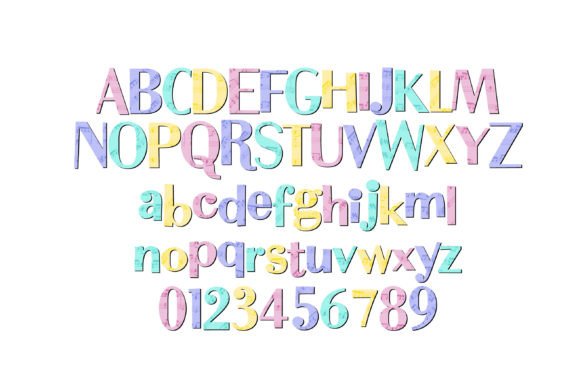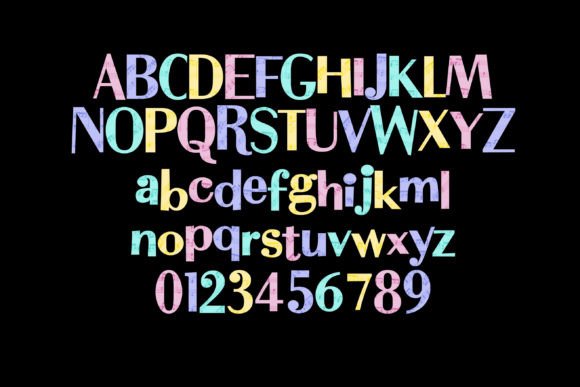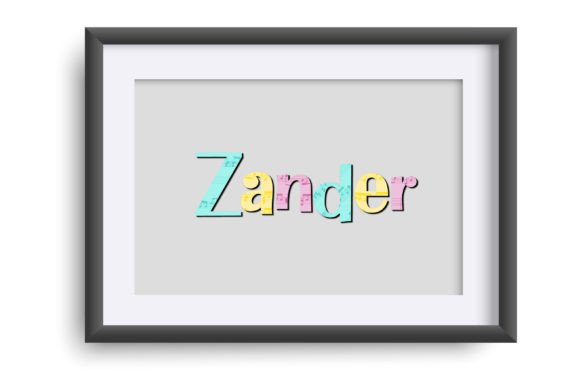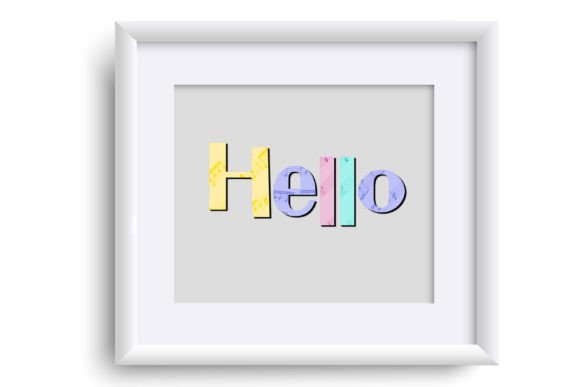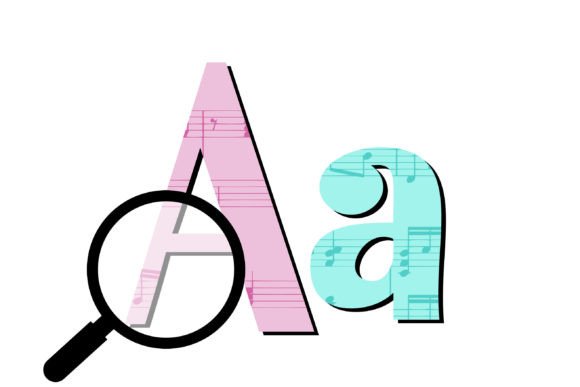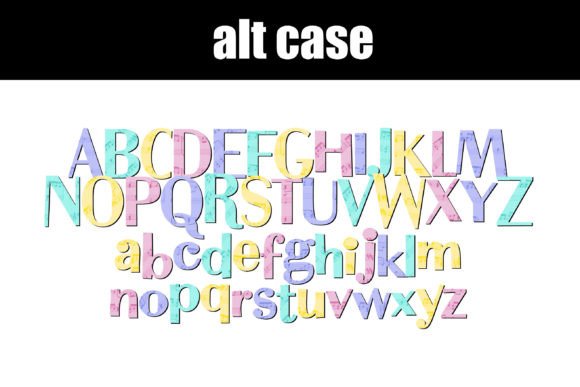
Introduction to Miss Music Teacher Font Font
Fonts play a crucial role in design, and the Miss Music Teacher Font font is a typeface that brings both character and versatility to any project. Whether you’re working on a branding project, a website, or a print design, the Miss Music Teacher Font font offers a unique style that can elevate your work.
This full-color font features pretty “music-inspired” lettering in pretty spring/pastel colors.
There is an alt version you can access through your system’s character map that contains additional colors of all the letters OpenType full-color (SVG) fonts are installed like any normal .
The Miss Music Teacher Font font is more than just a typeface – it’s a design tool that helps you communicate your message with style and clarity. Its unique character set and versatile design make it suitable for a wide range of applications, from elegant invitations to bold headlines.
With its carefully crafted letterforms and balanced proportions, the Miss Music Teacher Font font ensures readability and visual appeal across all mediums.
What makes Miss Music Teacher Font font special?
The Miss Music Teacher Font font stands out with its unique design, exceptional readability, and versatility across various design applications.